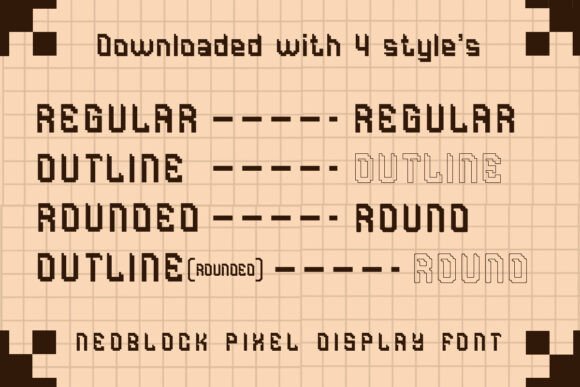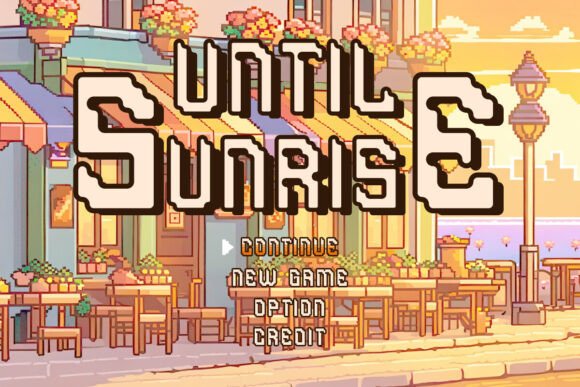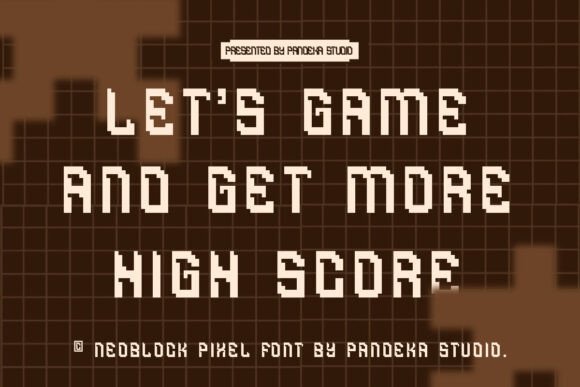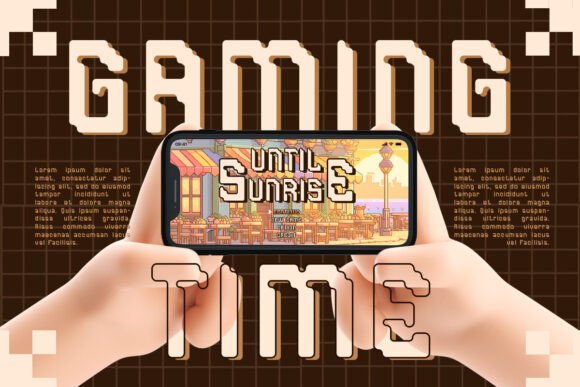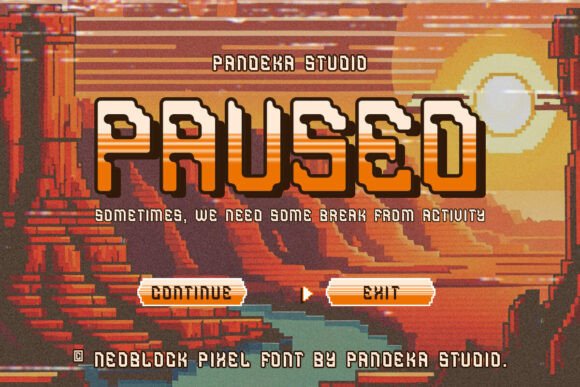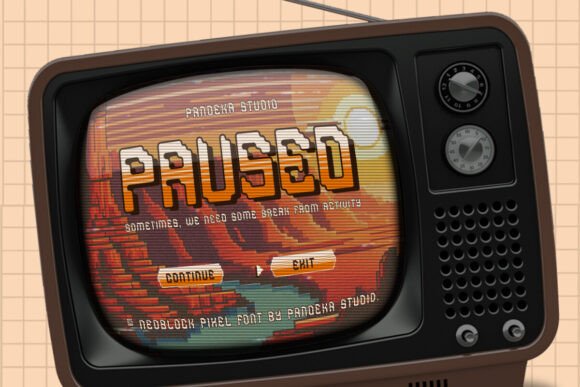
Introduction to Neoblock Font
Neoblock is a pixel-perfect display font designed to capture the essence of retro gaming and digital aesthetics.
Combining sharp, blocky shapes with modern readability, Neoblock is ideal for game design, posters, logos, and digital media projects that need a bold and nostalgic pixel style .